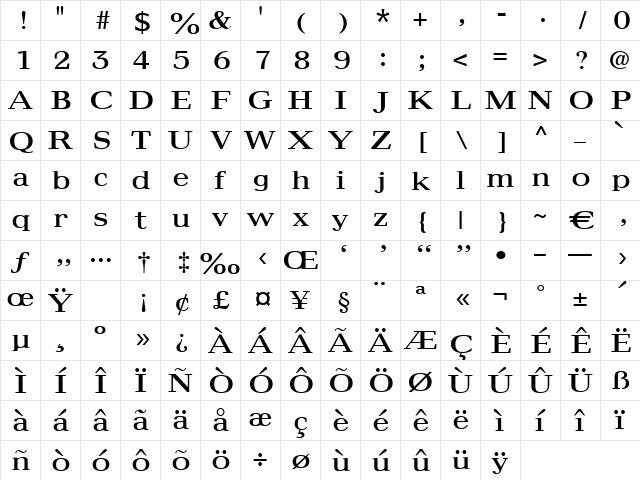
Provence Regular Font Preview
Provence Regular
Design Context for Provence Typeface
Provence offers clean, dependable letterforms without strong stylistic allegiance, making it a practical choice for designers who need flexibility.
Pro Tip: Use Provence in both headline and body roles to test its range before committing to a single application.